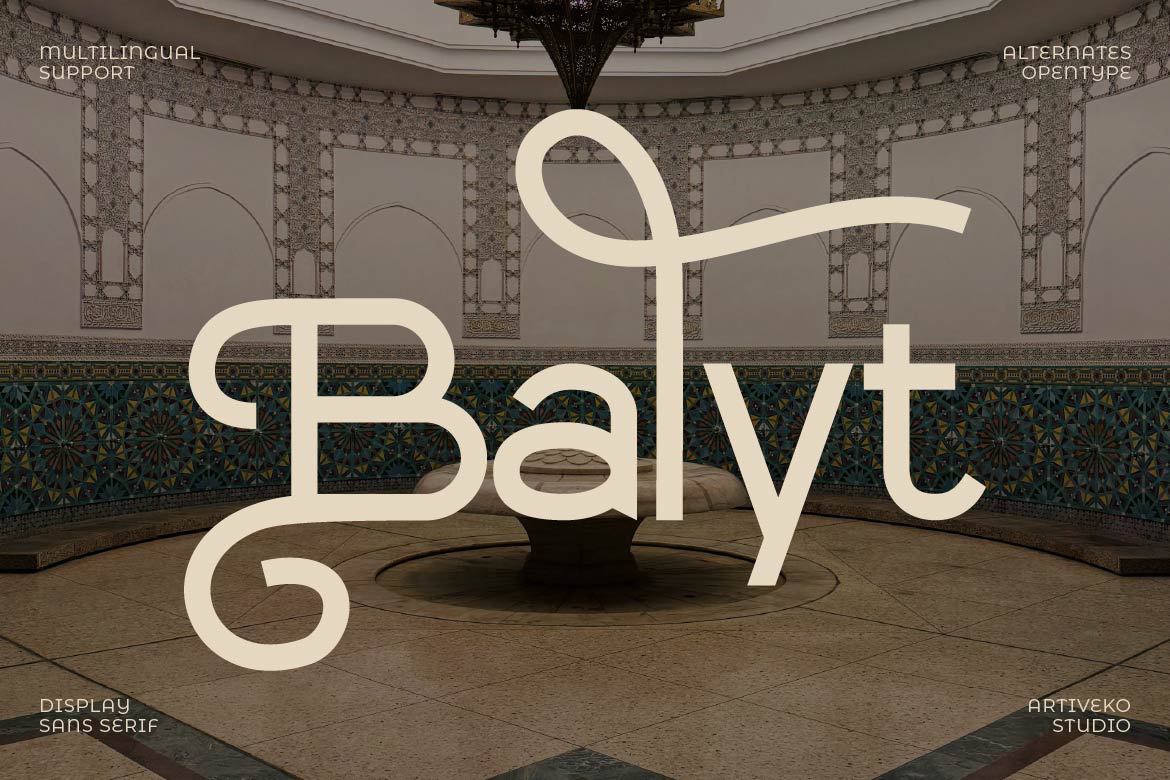
- Balyt – Modern Decorative Sans Serif Display Font
Balyt is a meticulously crafted sans serif font that seamlessly blends minimalist precision with unique decorative elements. Designed for the modern creator, it features clean, geometric lines punctuated by subtle artistic flourishes that give your typography a distinct, high-end personality.
Whether you are working on minimalist branding, editorial layouts, or futuristic UI designs, Balyt provides exceptional legibility without sacrificing character. Its balanced proportions and sophisticated “decorative-yet-clean” aesthetic make it a versatile powerhouse for logos, social media headers, posters, and luxury packaging. Elevate your creative projects with a typeface that embodies both clarity and contemporary style.
- Alternates